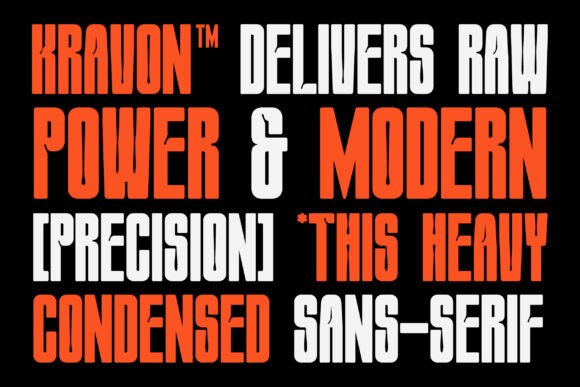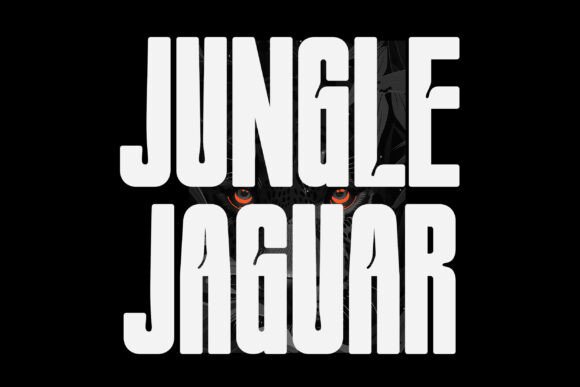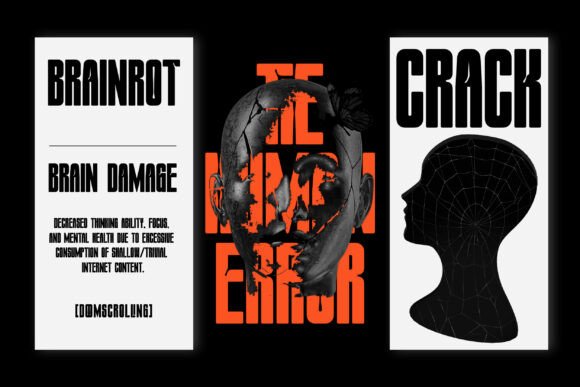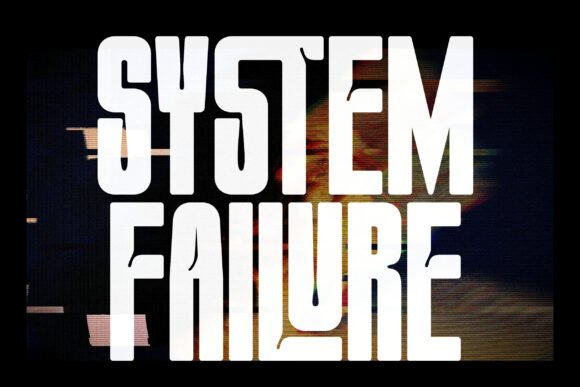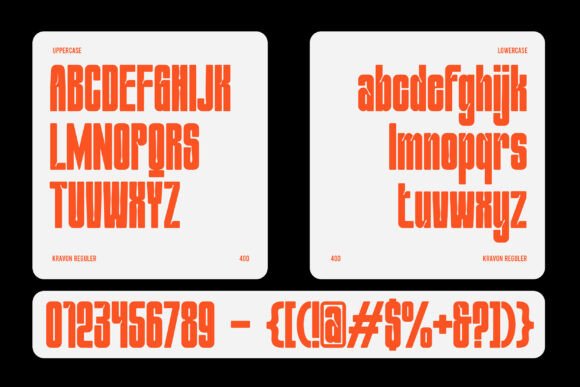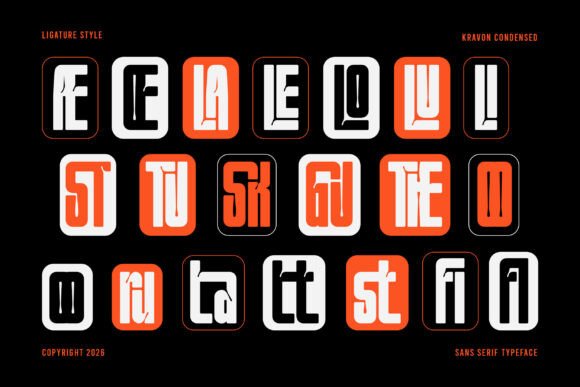
Introduction to Kravon Font
Have you ever stared at a blank canvas, trying to bring your creative vision to life, only to be met with a font that just doesn’t quite cut it? The struggle is real for designers, and it’s precisely this moment that the Kravon Font steps in – a high-quality design resource that elevates your project to the next level.
With its bold condensed display sans serif design, the Kravon Font delivers a confident and professional presence, perfect for modern corporate aesthetics. Its clean geometry and distinctive character details make it an excellent choice for a wide range of creative projects, from editorial design and advertising to posters and branding systems.
What sets the Kravon Font apart is its versatility – available for free download with a transparent background, making it a valuable addition to any designer’s toolkit. Whether you’re working on a high-stakes branding project or simply need a stylish font for your next creative endeavor, the Kravon Font is an excellent choice.
Key Features of Kravon Font
- Includes 6 font styles with varying weights and sizes
- Supports multiple languages, including English, Spanish, French, and more
- Designed with a modern aesthetic, perfect for modern branding and marketing materials
Honest Review: Kravon Font
I recently came across the Kravon Font, and I must say it’s been a great addition to my design resource library. As a designer, I’m always on the lookout for high-quality fonts that can elevate my creative projects. The Kravon Font has definitely delivered.
One of the things that stands out about the Kravon Font is its versatility. I’ve used it for a variety of projects, from logos to headings, and it looks great every time. The font is highly customizable, making it perfect for designers who like to get creative. Plus, the transparent background option makes it easy to layer with other design elements.
Here are some of the things that work well about the Kravon Font:
- High-quality design that looks great on any device
- Easy to customize and style
- Transparent background option for seamless layering
While the Kravon Font is an excellent addition to any designer’s library, there are a few limitations to be aware of:
- No bold or italic font options (⚠️)
- May not be suitable for small text sizes (⚠️)
Overall, I’m really impressed with the Kravon Font. It’s a great design resource that’s perfect for any creative project. With its high-quality design, ease of use, and transparent background option, it’s definitely worth checking out.
Tips for Getting the Most Out of Kravon Font
To get the most out of Kravon Font, experiment with different font sizes, styles, and colors. You can also use the font in combination with other design elements, such as images and graphics, to create a unique and eye-catching design. Don’t forget to take advantage of the free download option to access the font and start creating your high-quality design project today.
Kravon Font is perfect for a variety of design projects, including logos, brochures, posters, and social media graphics. Its high-quality design makes it an ideal choice for creative projects, and its transparent background feature makes it easy to use in conjunction with other design elements.
Montserrat compares to Kravon Font by having a more geometric and sleek appearance. It is ideal for use in digital design, such as websites and mobile apps.